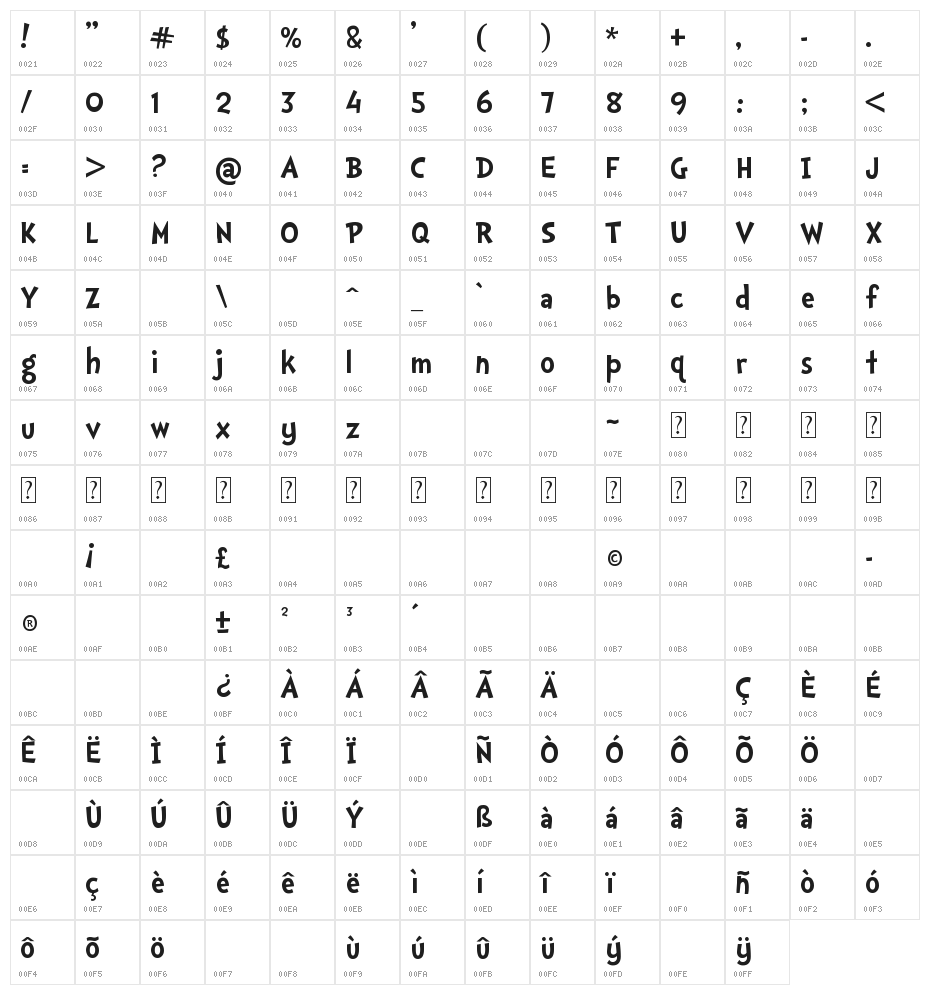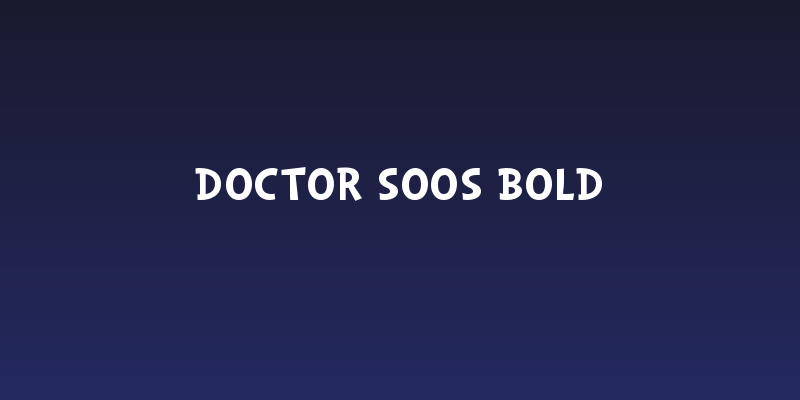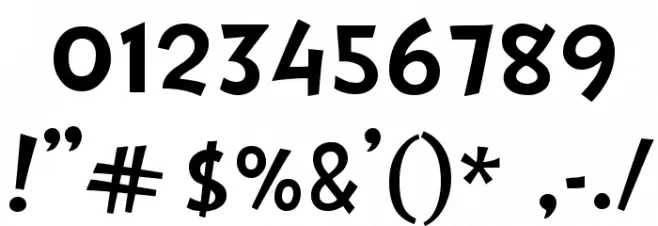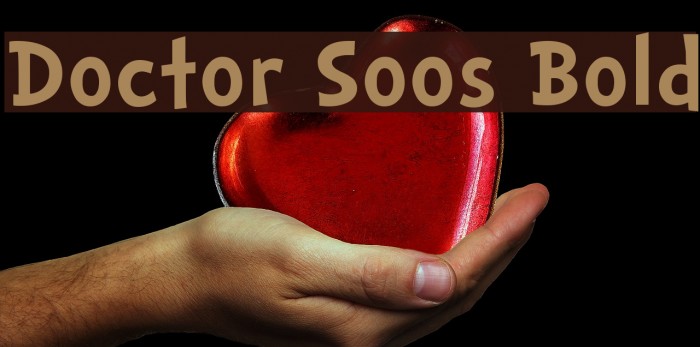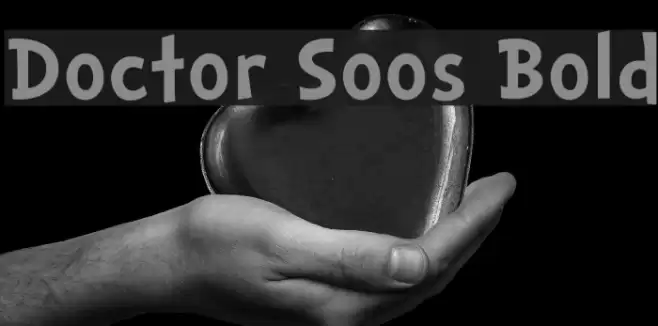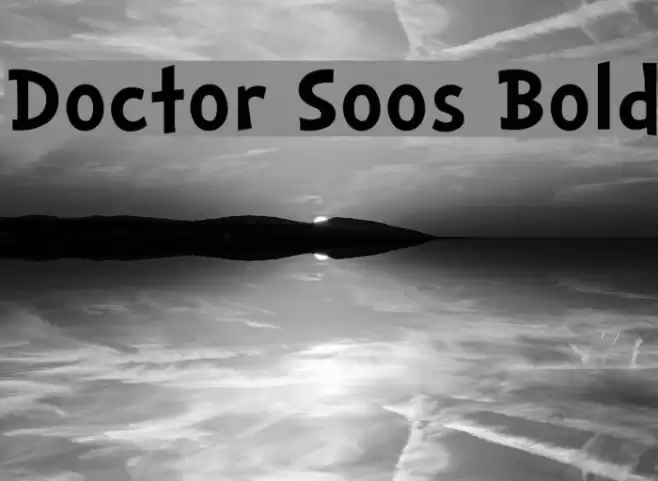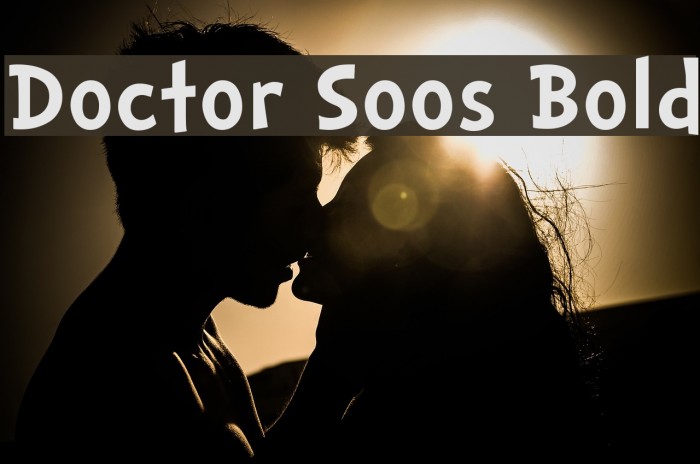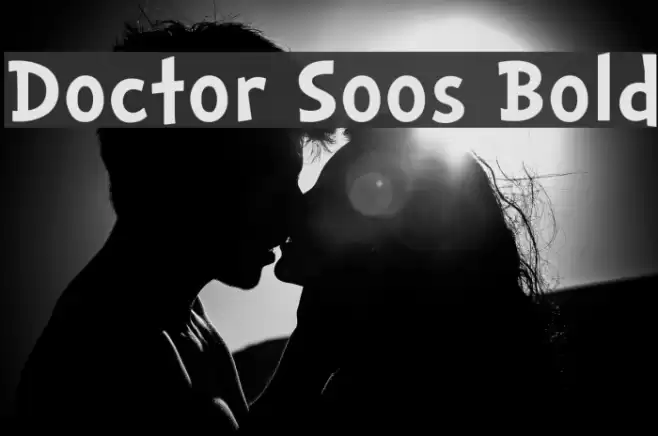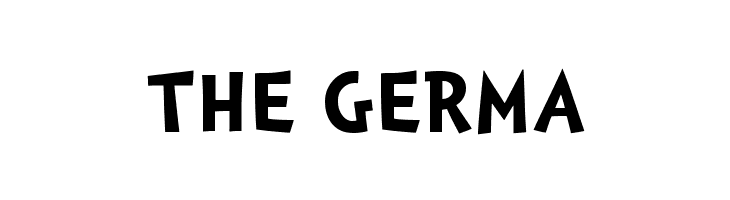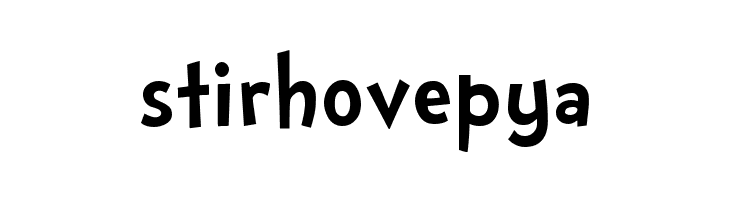
Doctor Soos Bold Font
Doctor Soos Bold Description
This playful and whimsical font features bold, rounded characters with a slightly uneven baseline, giving it a lively and dynamic appearance. The letters are thick and substantial, with a hand-drawn quality that adds a touch of charm and personality. The uppercase and lowercase letters maintain a consistent style, with the uppercase being slightly more exaggerated in form. The numerals and special characters are equally bold and expressive, making them stand out. This font is perfect for projects that require a fun and engaging aesthetic.
| Overall Style | Playful, Whimsical |
| Proposed Projects | Ideal for children's books, playful branding, posters, and creative invitations. |